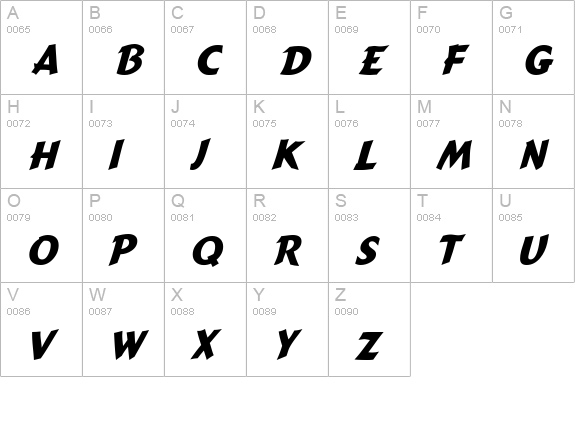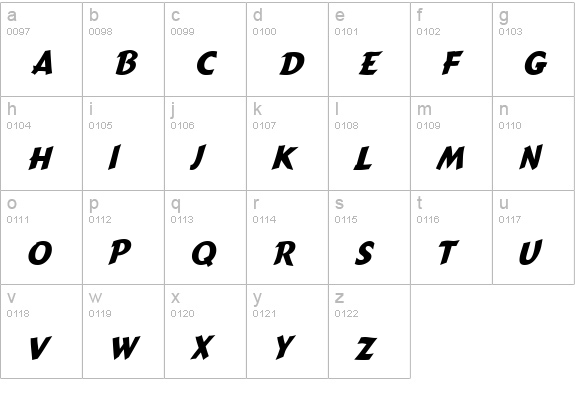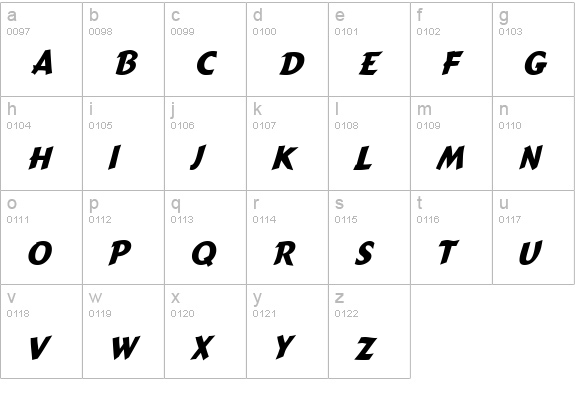
GremlinCaps Bold Italic Font Details
GremlinCaps Bold Italic is a strong, high-contrast, italic variant in the GremlinCaps typeface family \xE2\x80\x94 well suited to headlines, attention-grabbing titles, and strong calls-to-action.
GremlinCaps Bold Italic is a dynamic and eye-catching font that exudes a sense of boldness and creativity. Its unique combination of sharp edges and flowing curves creates a striking visual impact, making it perfect for attention-grabbing headlines, branding materials, and design projects that require a touch of flair. This font is available for free download at FontsMarket.com, where you can easily access and incorporate it into your projects. Whether you're looking to make a statement with your typography or add a touch of personality to your designs, GremlinCaps Bold Italic is sure to elevate your creations and leave a lasting impression.